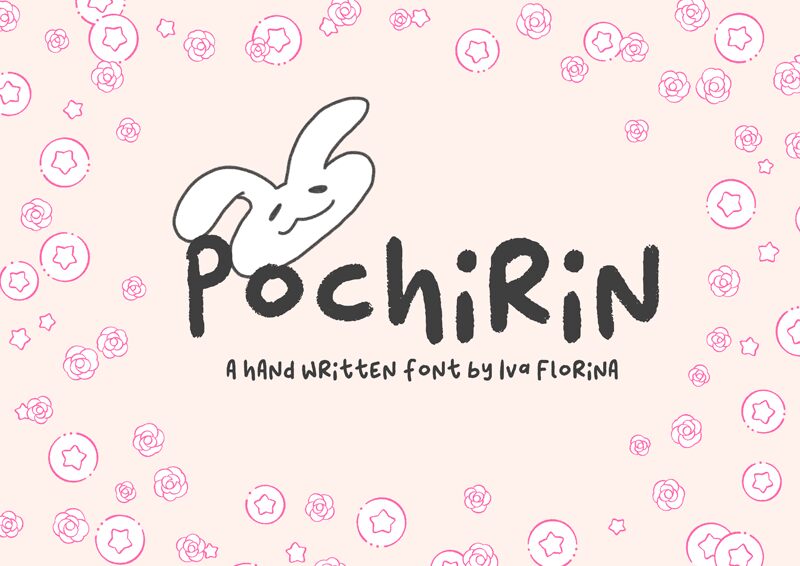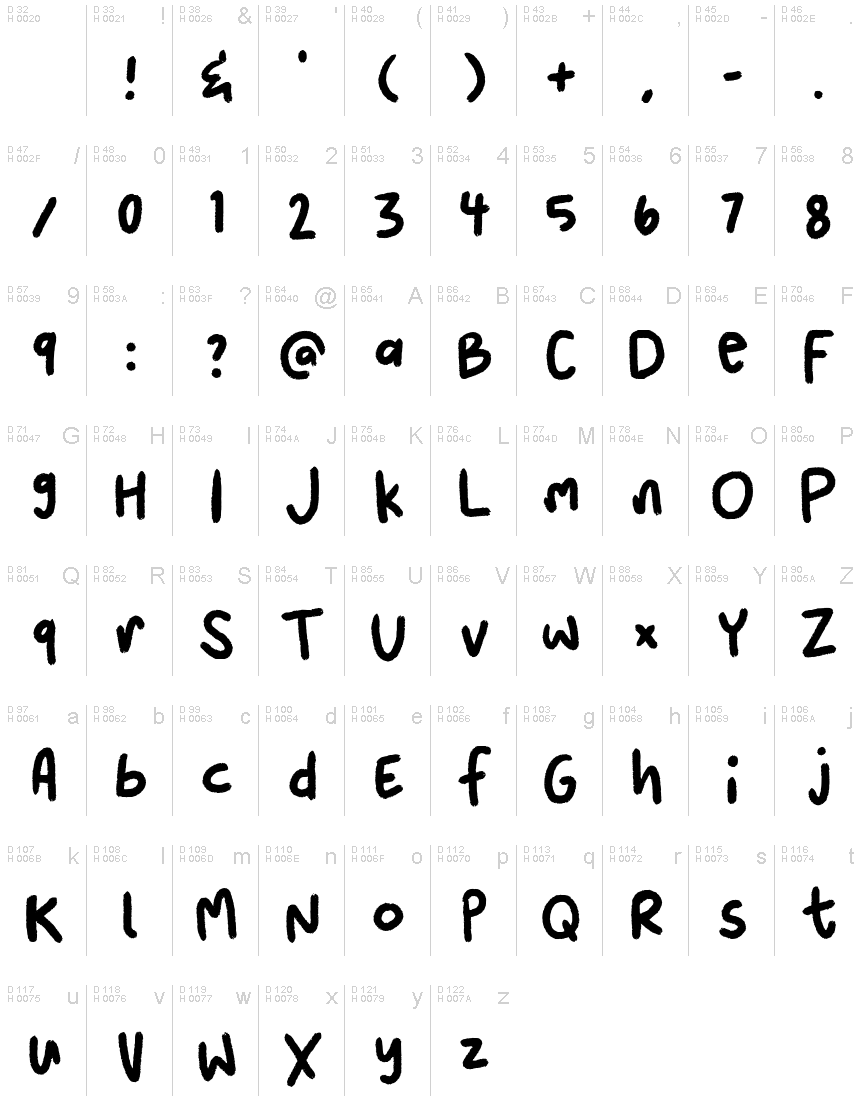
Pochirin Regular
Pochirin, a creation of Iva Florina, brings the intimate touch of handwritten charm to the digital realm. Its fluid strokes and organic forms evoke the warmth of personal correspondence, with each letter carrying the distinct variation and imperfection found in genuine penmanship. This font's casual elegance makes it a delightful choice for invitations, greeting cards, and branding projects that aim for a personal and approachable feel.
Its versatility allows Pochirin to be equally at home in creative settings such as children's books or quirky advertising campaigns where a touch of whimsy is desired. The friendly appeal of this font ensures that it will resonate with audiences seeking a human touch in design.
Another fun and cute typeface!! Toggle the caps lock button for various looks!